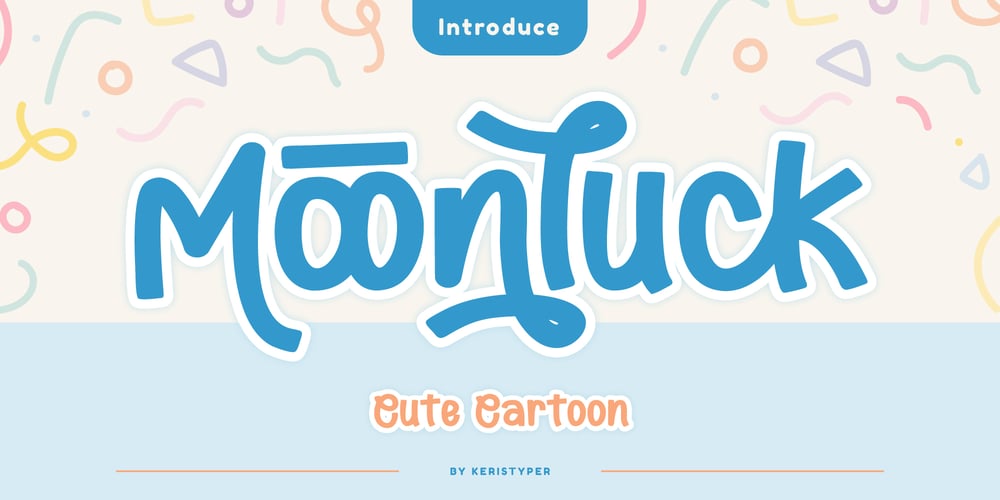
Moonluck Font Family was designed by Tezar Tantular and published by Keristyper Studio. Moonluck contains 1 styles and family package options. Moonluck is a playful and whimsical font with a cute and cartoonish feel. It features bold and rounded letters with a playful bounce, making it a perfect choice for designs aimed at children or anyone looking to add a touch of fun and playfulness to their projects.Featured: Standard, Uppercase & Lowercase Numeral & Punctuation Multilingual : ä ö ü Ä Ö Ü ß ¿ ¡ Alternate & Ligature PUA encoded We recommend programs that support the OpenType feature and the Glyphs panel such as Adobe applications or Corel Draw, so you can use all the variations of the glyphs.Hope you enjoy our fonts!